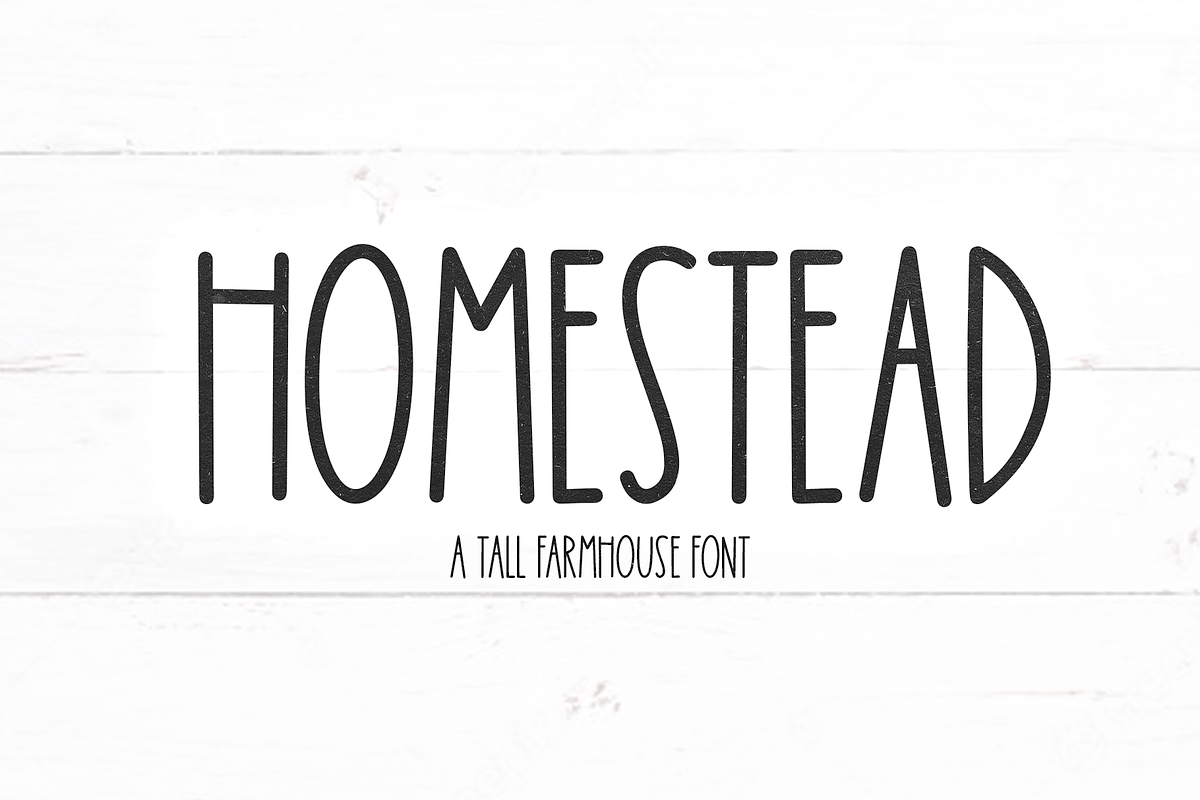
Homestead | Tall Farmhouse Font Free Download
Homestead Tall Farmhouse Font Free Download
Homestead Tall Farmhouse Font Free Download is a charming and rustic typeface designed to bring warmth and simplicity to your creative projects. With its tall letterforms and farmhouse-inspired style, this font is perfect for signage, home décor prints, product packaging, logos, and social media graphics that need a cozy, handcrafted touch.
Whether you’re designing for a small business, a handmade product, or a seasonal promotion, Homestead delivers that clean, down-to-earth farmhouse vibe that people love. Add personality and heart to your designs with this tall, timeless font.